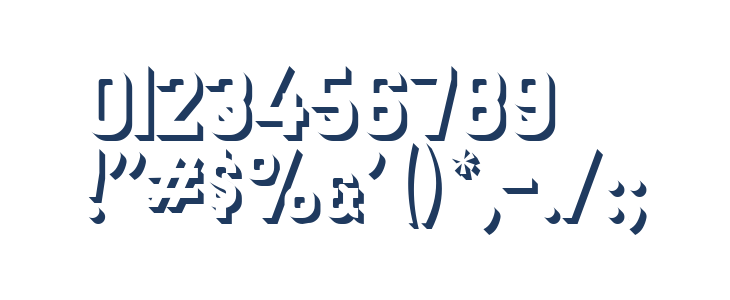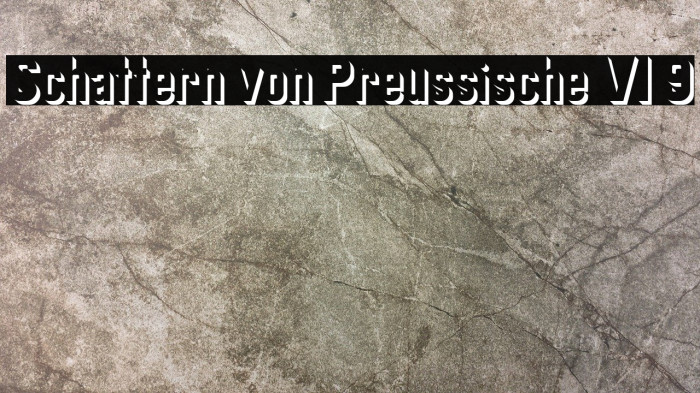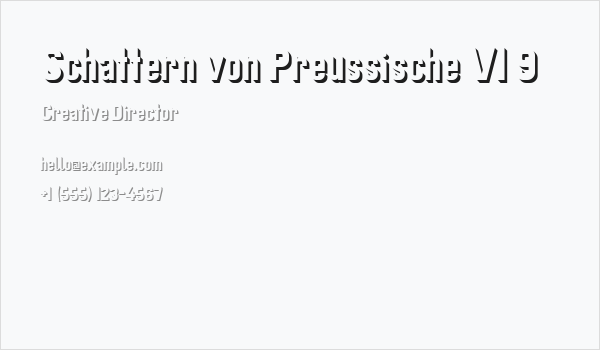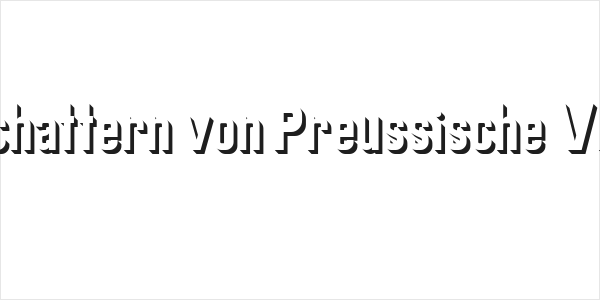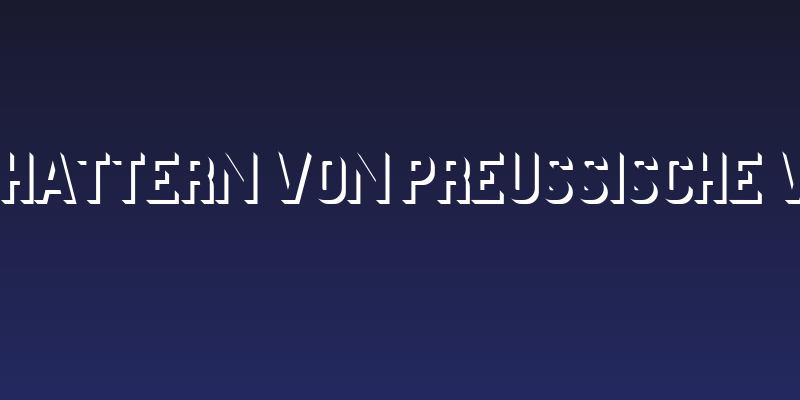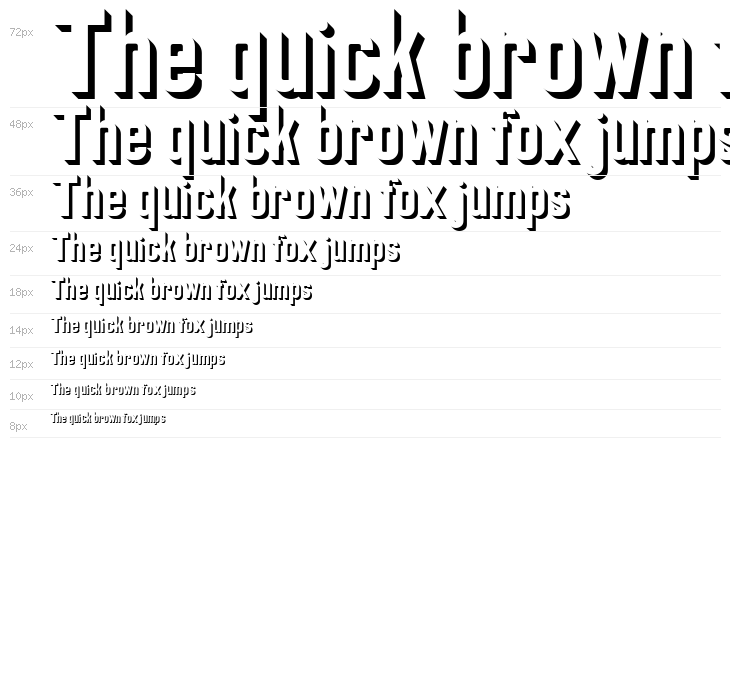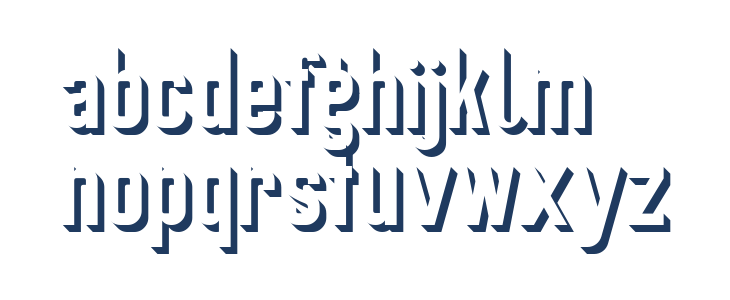
Schattern von Preussische VI 9 Font
Schattern von Preussische VI 9 Description
This font features a bold and striking design with a shadow effect that gives each character a three-dimensional appearance. The uppercase letters are strong and angular, while the lowercase letters maintain a consistent style with slightly rounded edges. The numbers and special characters follow the same bold and shadowed aesthetic, making them stand out. The font's unique style is both modern and decorative, suitable for creating eye-catching headlines or logos. Its distinct shadow effect adds depth and dimension, making it ideal for projects that require a bold statement.